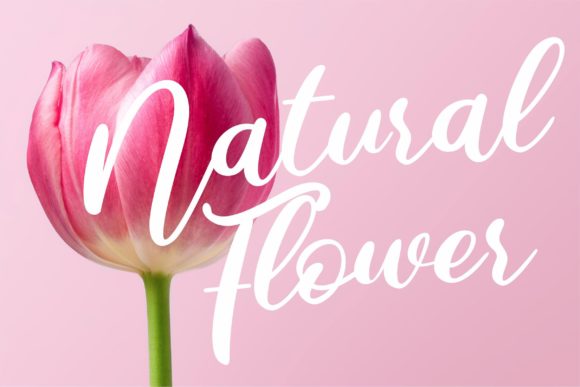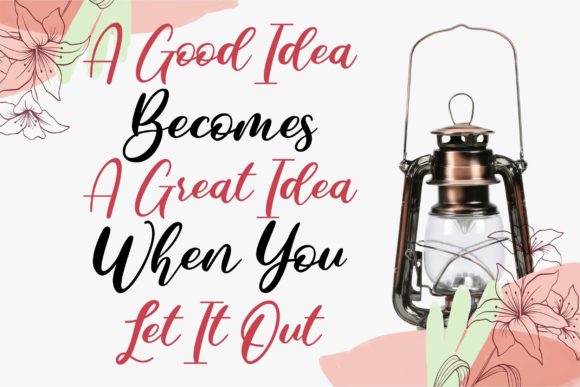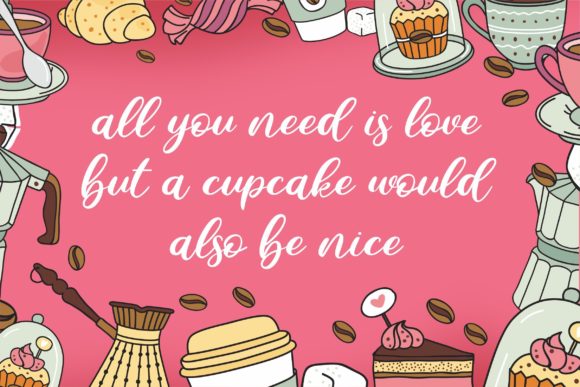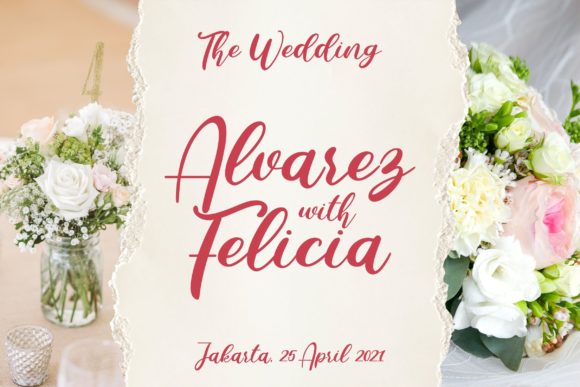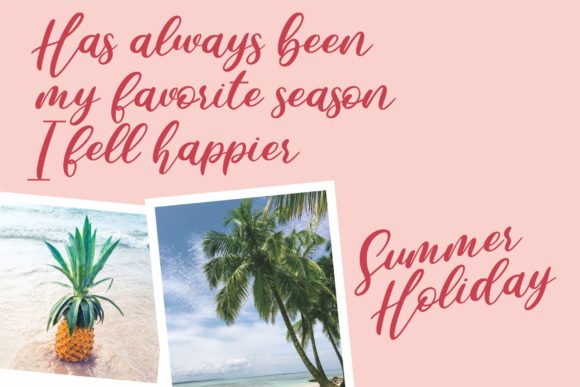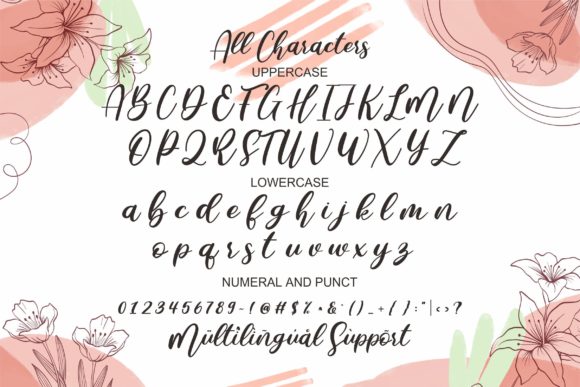
About Rosella Flakes Font
Rosella Flakes is a sweet and friendly handwritten font. Its natural and unique style makes it incredibly fitting for a large pool of designs. The only limit is your imagination!